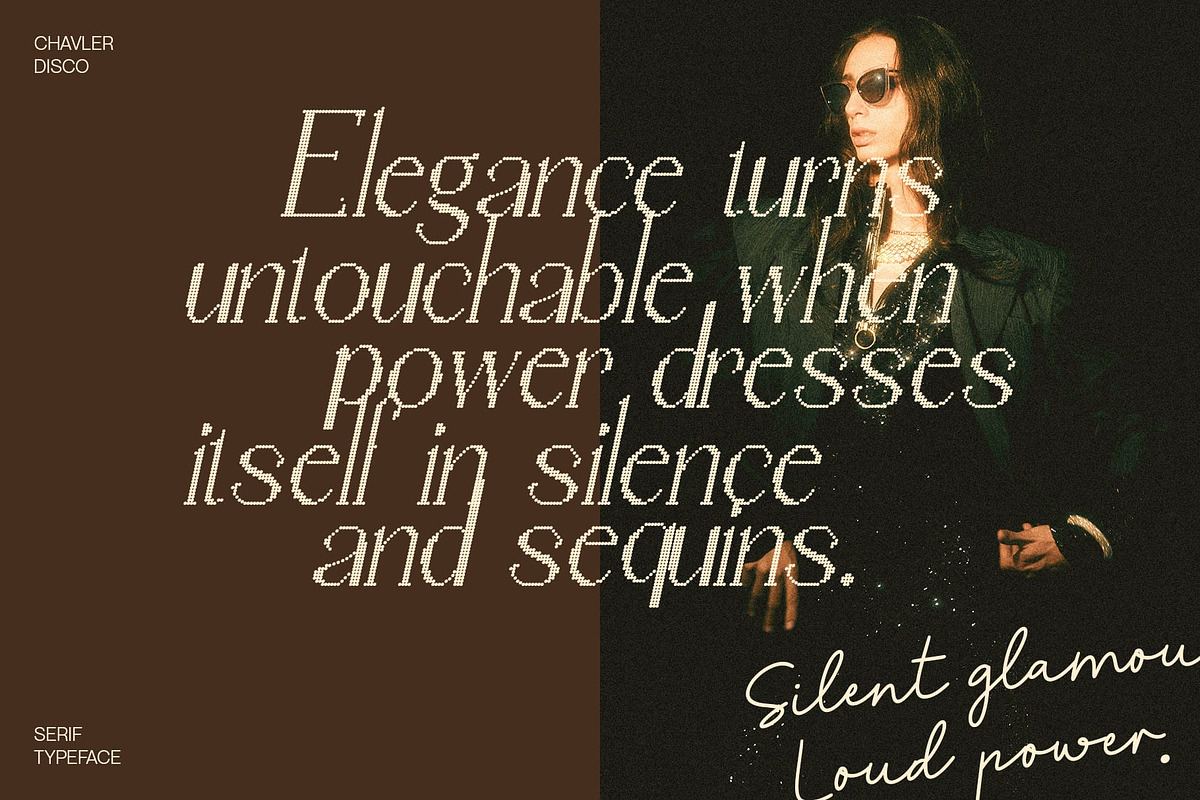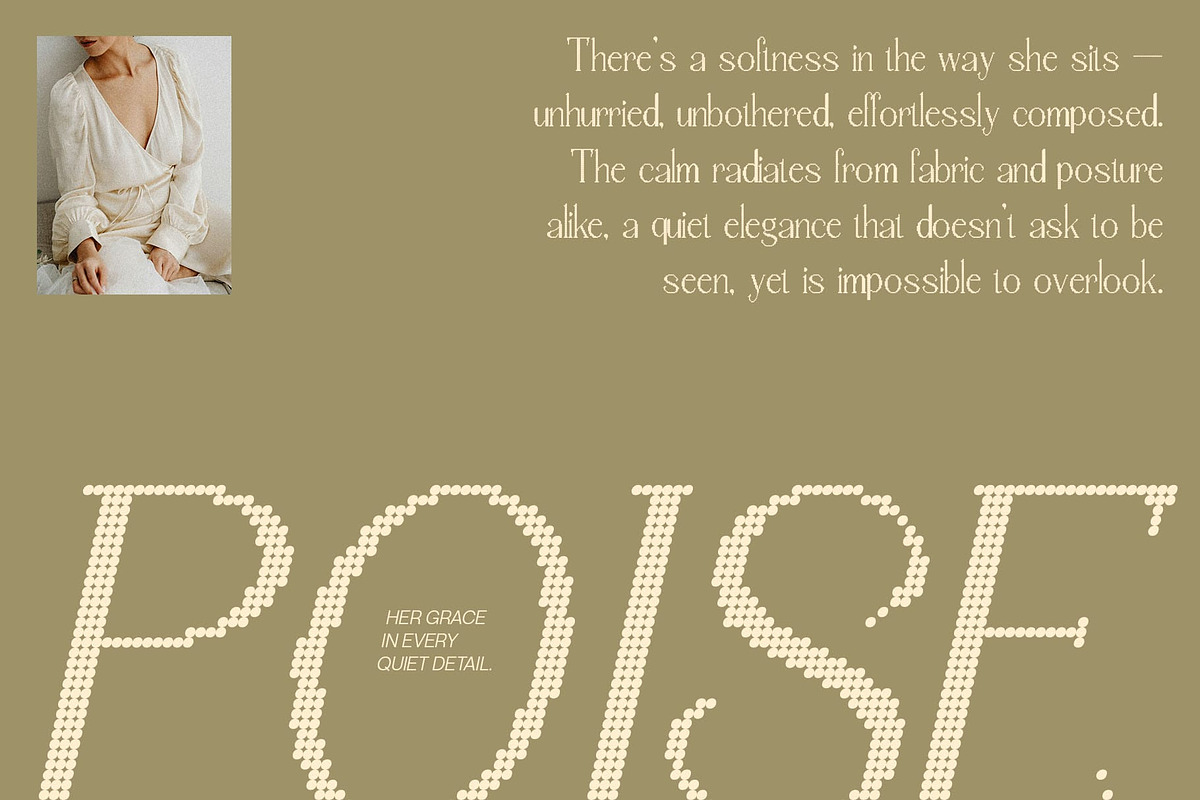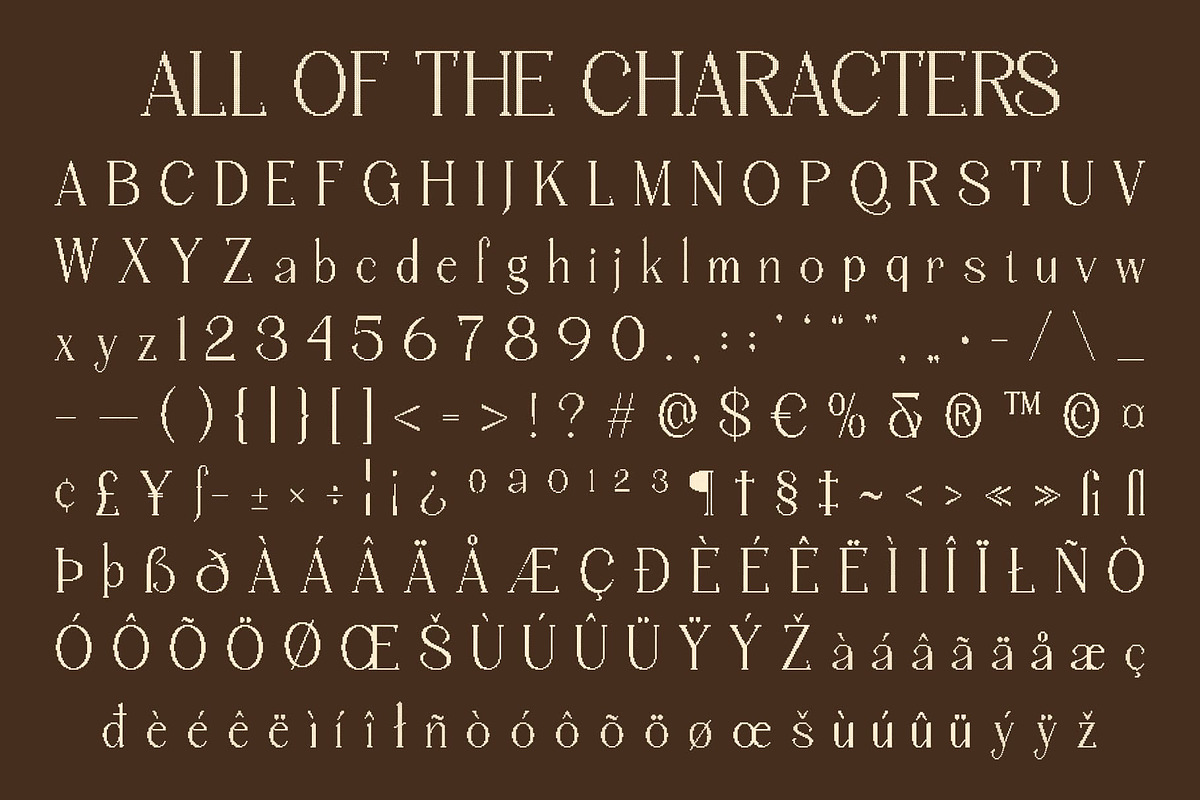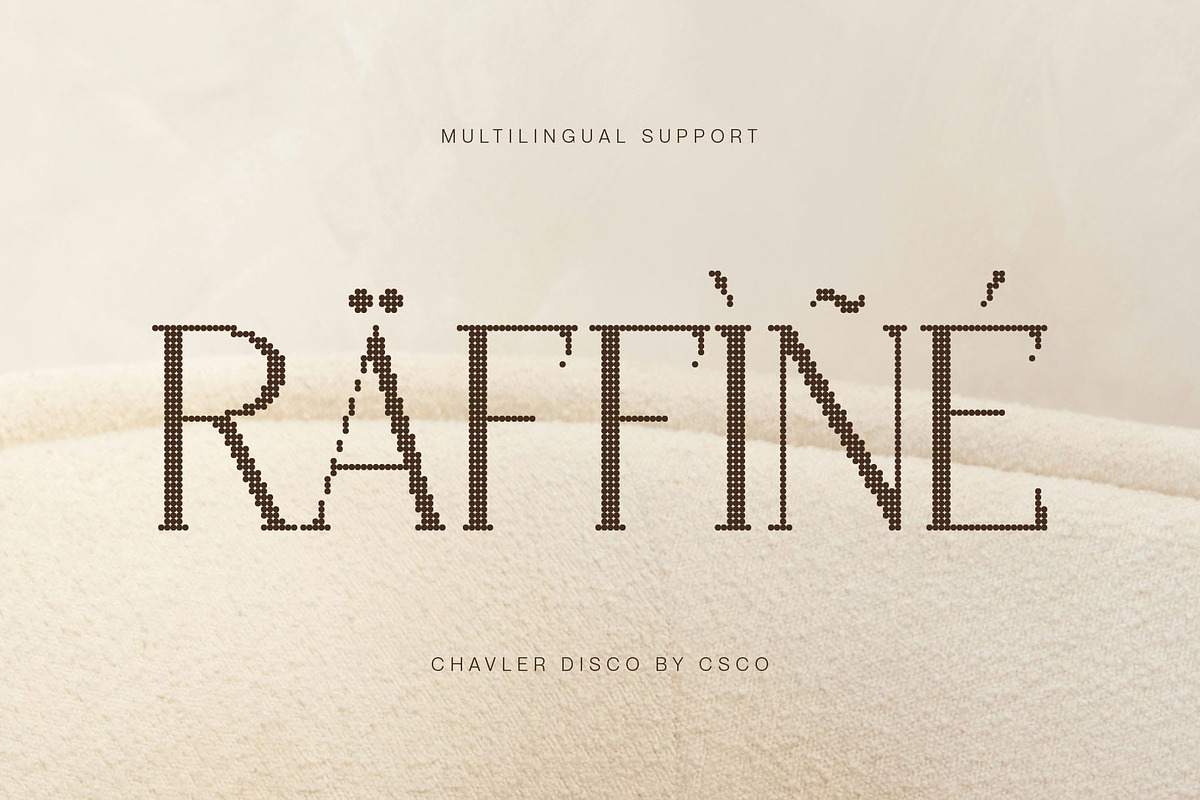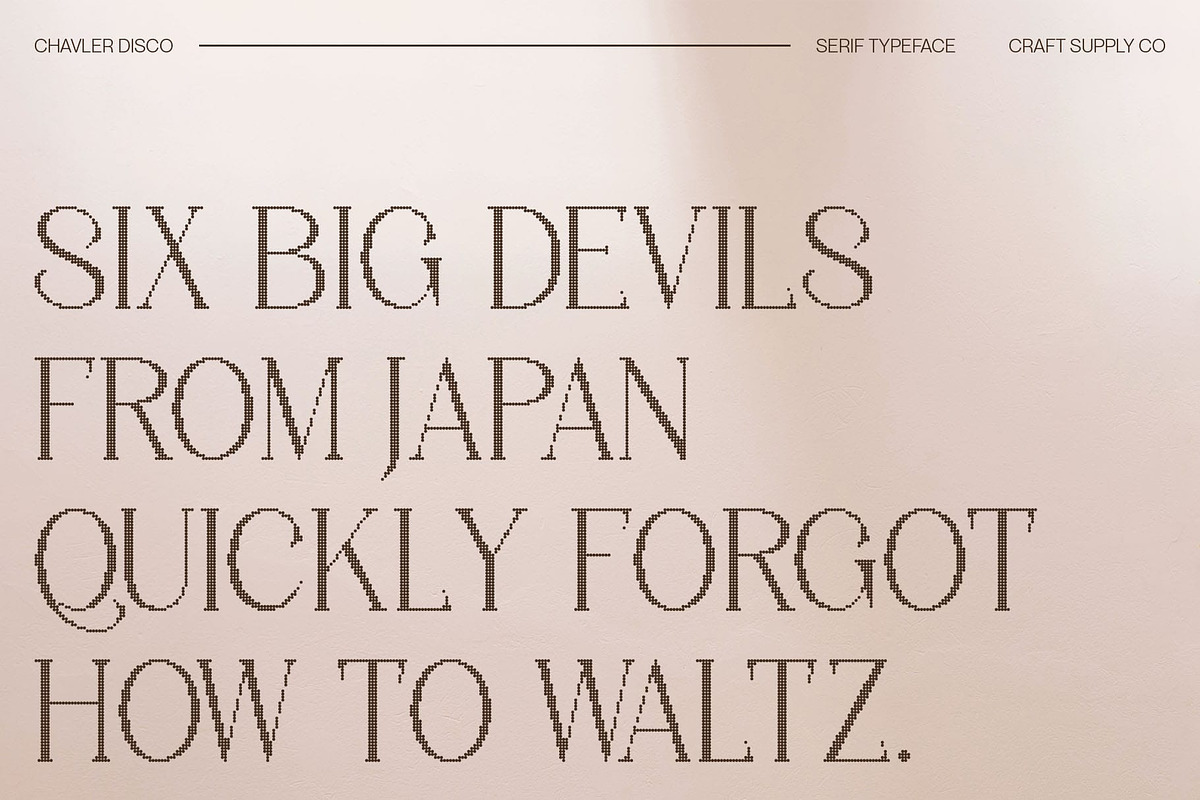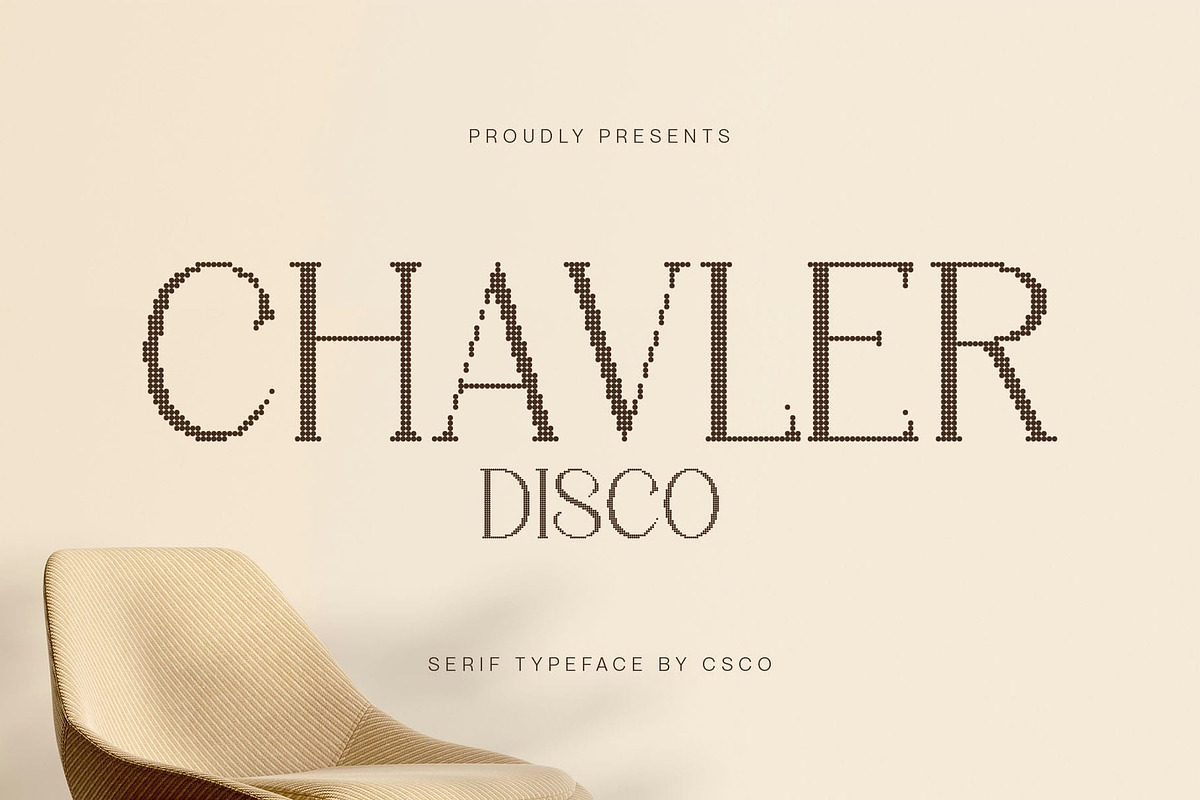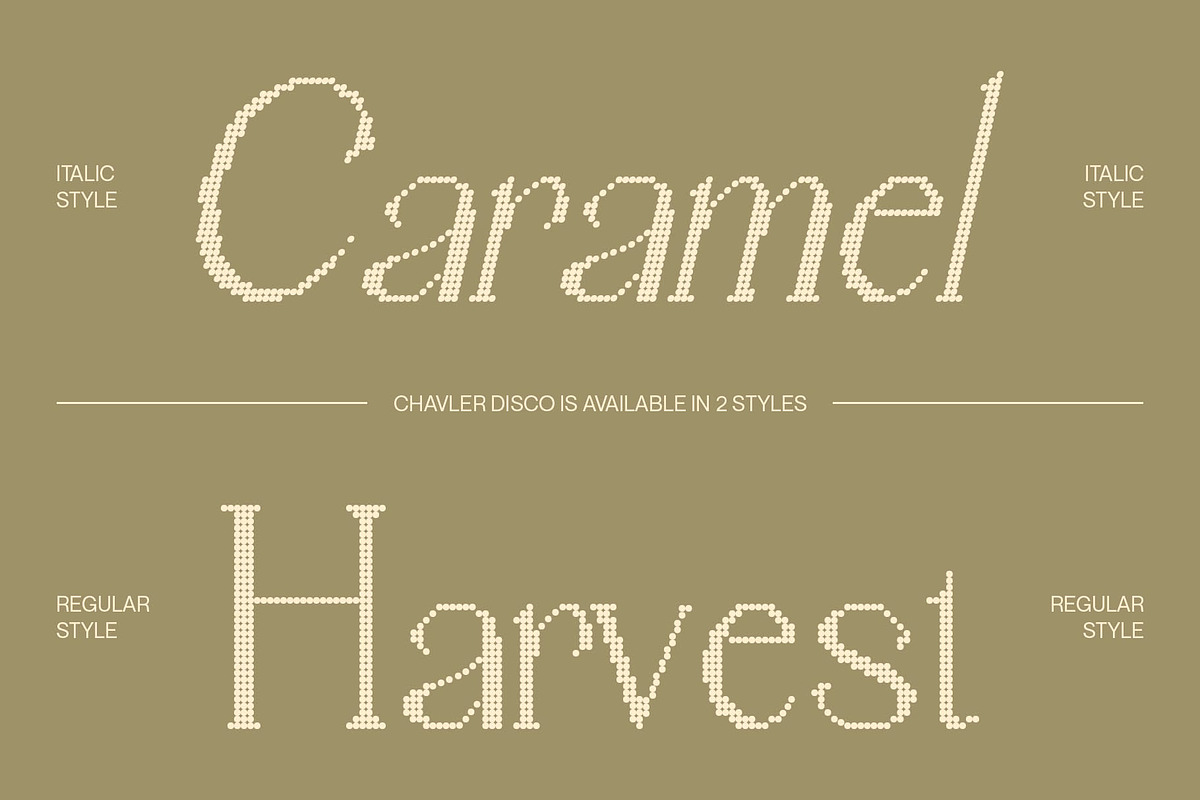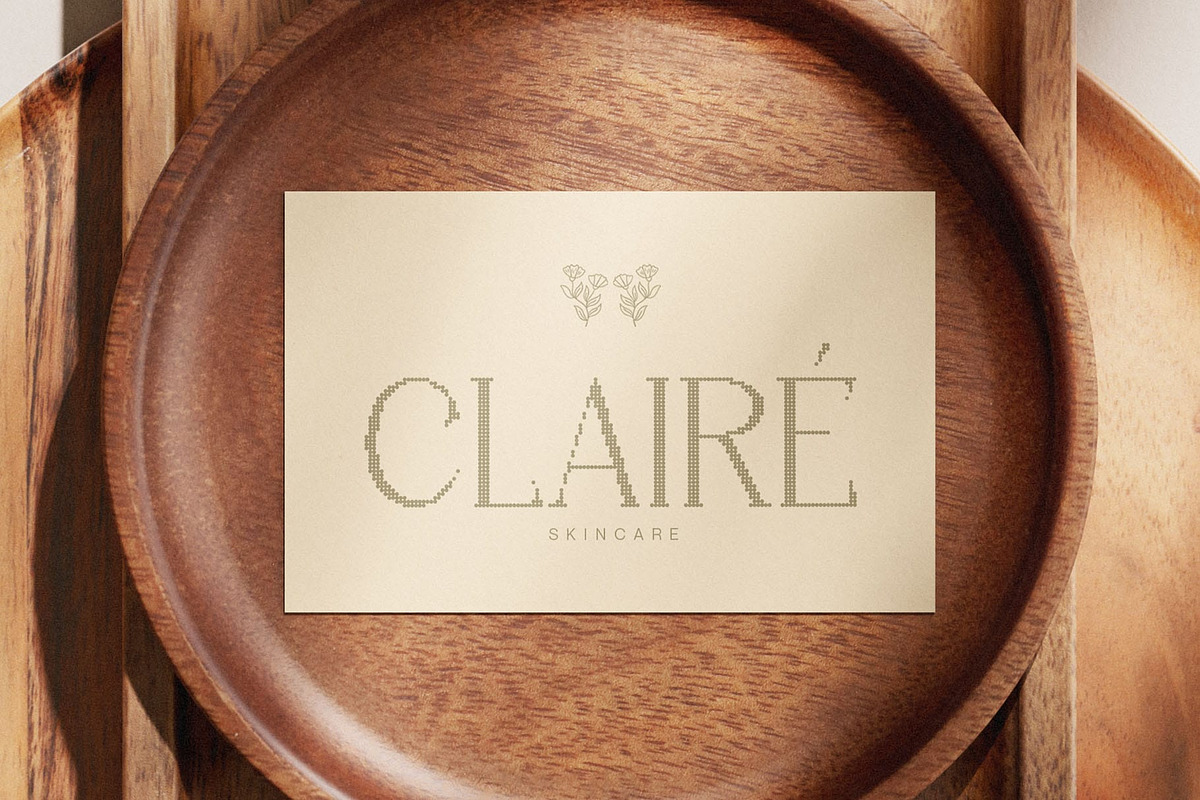
Chavler Disco
Chavler Disco – Modern Serif with Sparkling Confidence
Modern Serif with Contemporary Form This is a modern serif font that radiates strength, sophistication, and clarity. Its clean structure and balanced proportions give it a commanding presence while maintaining elegance and versatility. Designed to project confidence, this font is perfect for designers seeking a typeface that feels both modern and timeless.
Disco Sparkle Effect for Glamorous Appeal Adding a unique twist to its refined form, features a disco-inspired sparkle overlay that infuses each character with vibrancy and charm. This shimmering detail introduces a glamorous, energetic touch, transforming the font from simple sophistication into a statement of creativity and style. It’s ideal for projects that need to shine with personality and modern flair.
Perfect for Elegant and Expressive Branding This font adapts beautifully across design applications from headlines and logos to branding and editorials. Its serif construction ensures readability and impact, while the disco effect brings a lively rhythm and visual excitement. This balance makes it suitable for both luxury campaigns and creative event visuals.
Where Modern Strength Meets Glamour With its seamless fusion of professional clarity and artistic shimmer, stands out as a font that celebrates confidence, style, and expression. Whether used for fashion branding, promotional posters, or editorial layouts, it delivers a polished yet dynamic presence that leaves a lasting impression.